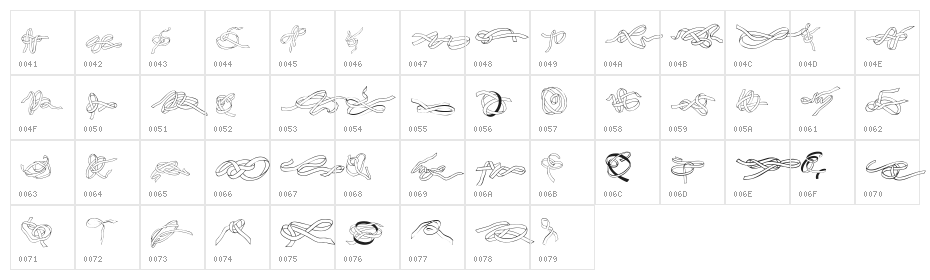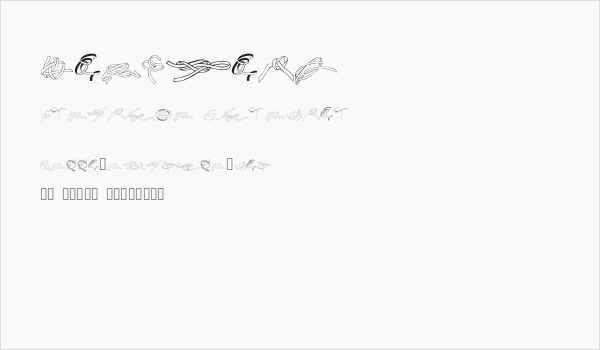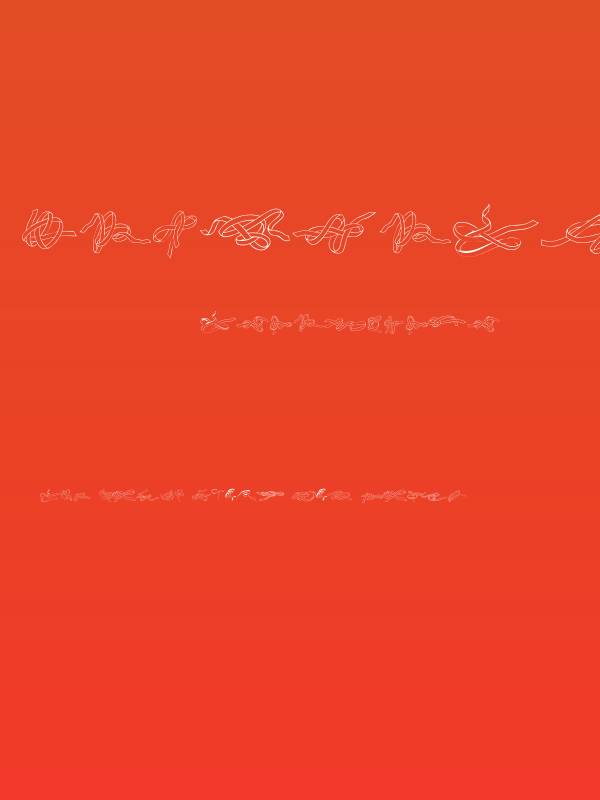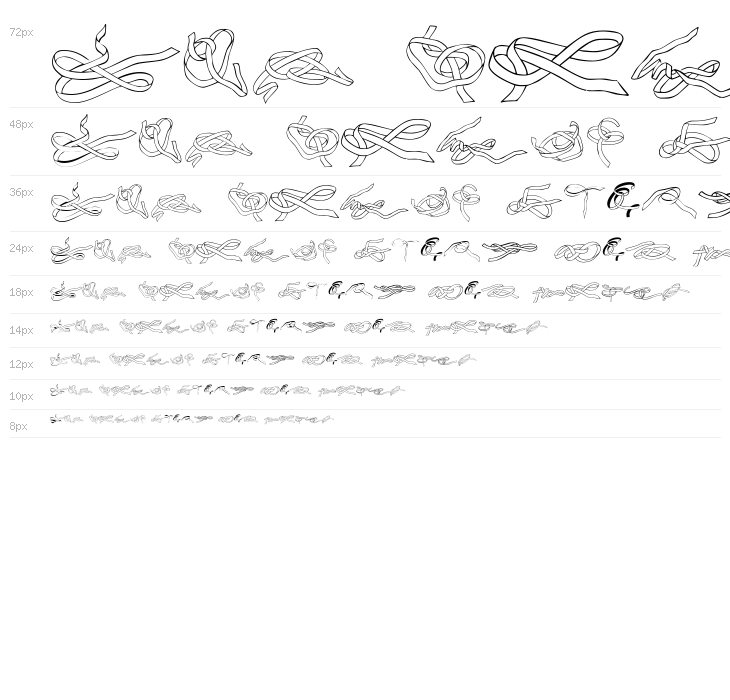
Zoeknots Font
Zoeknots Description
This font features an intricate and artistic design, resembling a series of interconnected knots or loops. Each character is crafted with a continuous line that twists and turns, creating a sense of fluidity and motion. The style is highly decorative, making it suitable for creative and artistic projects. The characters are not easily legible at a glance, which adds to the unique and abstract nature of the font. This design is ideal for use in projects where the visual impact is more important than readability, such as logos, posters, or artistic displays.
| Use Case | Logos, Artistic displays |
| Proposed Projects | Ideal for logos, artistic posters, decorative elements, and creative branding projects. |